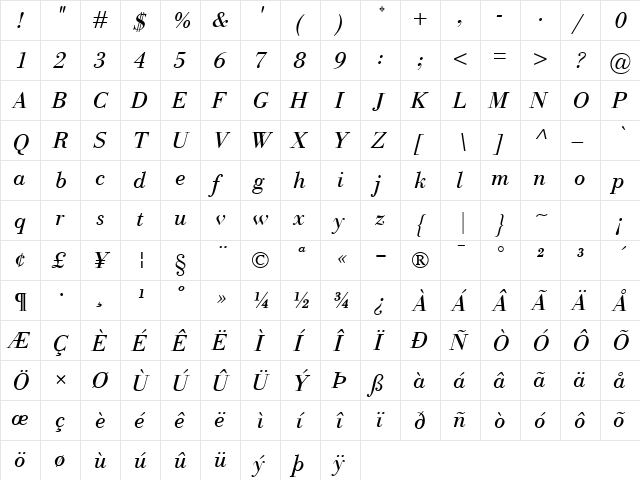
Bodoni Classico Italic
Design Context for Bodoni Classico Typeface
Bodoni Classico has the warm character of retro typography — evoking diners, record sleeves, and the golden age of print advertising. Its italic angle brings a sense of urgency and motion to the letterforms.
Ideal for diner signage, record shop branding, 70s/80s-themed projects, and heritage product labels.
Font Pairing: Combine Bodoni Classico with a simple slab or neutral sans — period-accurate companions reinforce the vintage feel without competing for attention.
Pro Tip: Lean into Bodoni Classico's period character by pairing it with aged paper textures, muted colour palettes, and vintage illustration styles.